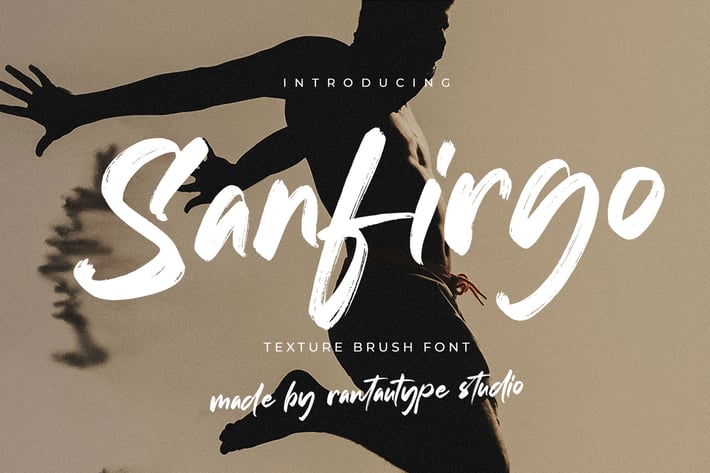
Sanfirgo Texture Brush Font
Sanfirgo is texture brush font with modern look. Sanfirgo come to make you design project amazing with our feature. Sanfirgo is a perfectly choice for any creative endeavor,modern, chic, lifestyle design such as logotype, title, cover, branding, invitations, wedding designs, display and magazine, social media posts, advertisements, printed quotes, product packaging, corporate brand, product designs, labels, photography, watermarks, special events and any other project with handwritten touch.
Standart Glyphs
Alternate and Ligature